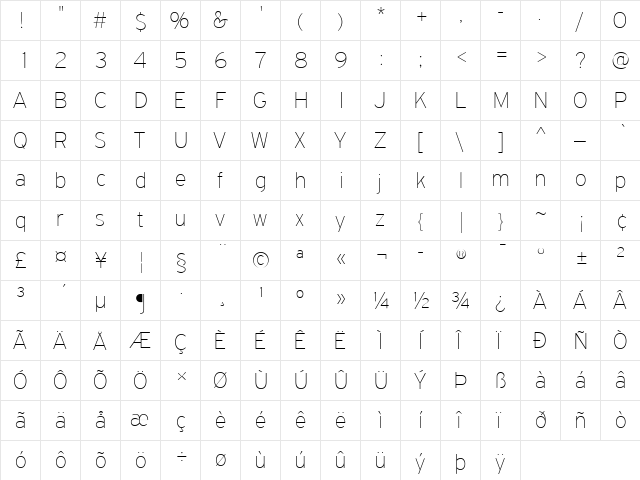
PF Highway Sans Pro Extra Thin
| Foundry | Parachute蠗orldwide |
| Designer | Panos Vassiliou |
Design Context for PF Highway Sans Pro Typeface
PF Highway Sans Pro is a composed and adaptable typeface that performs quietly and consistently across a wide range of design contexts. Its slender proportions lend an understated elegance to any composition.